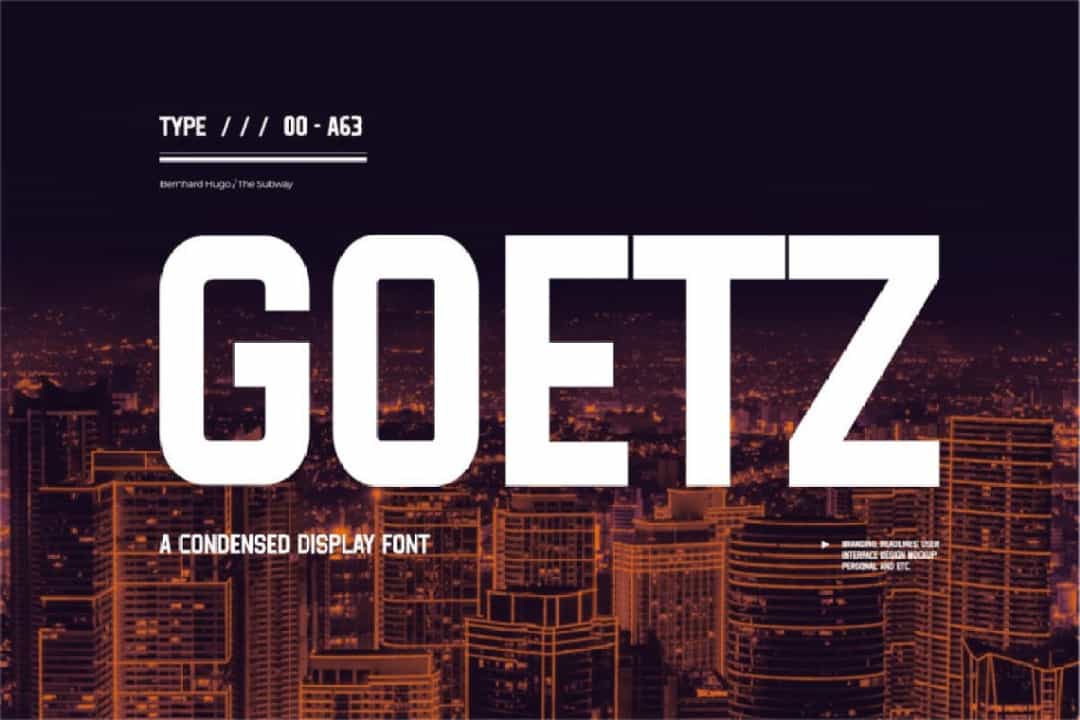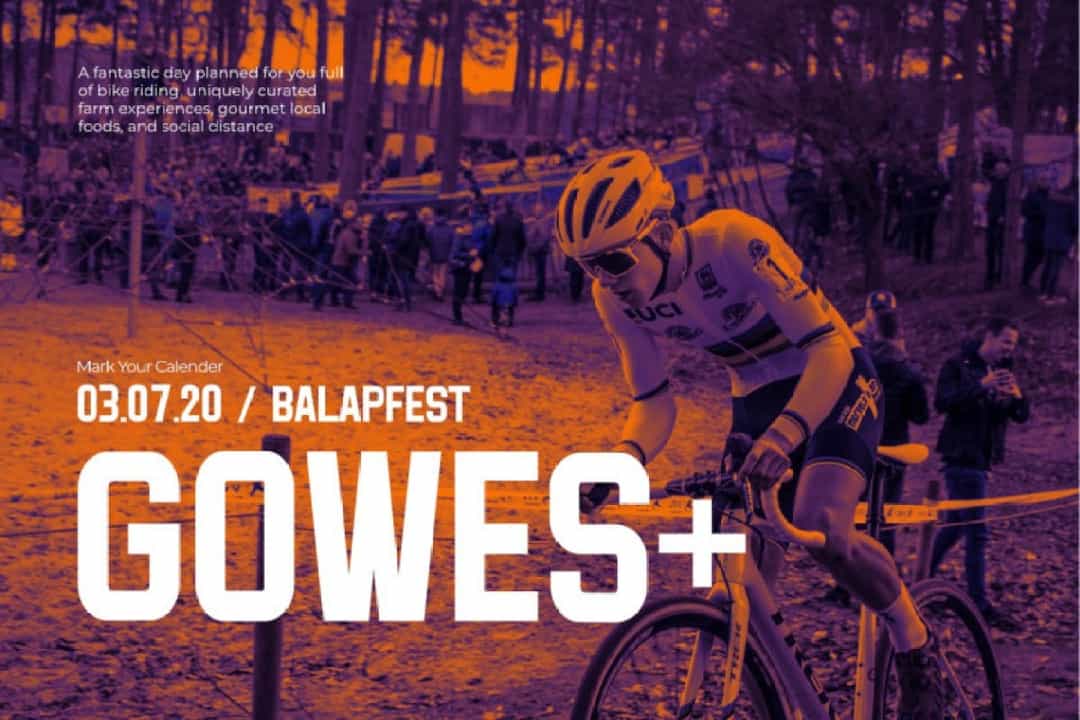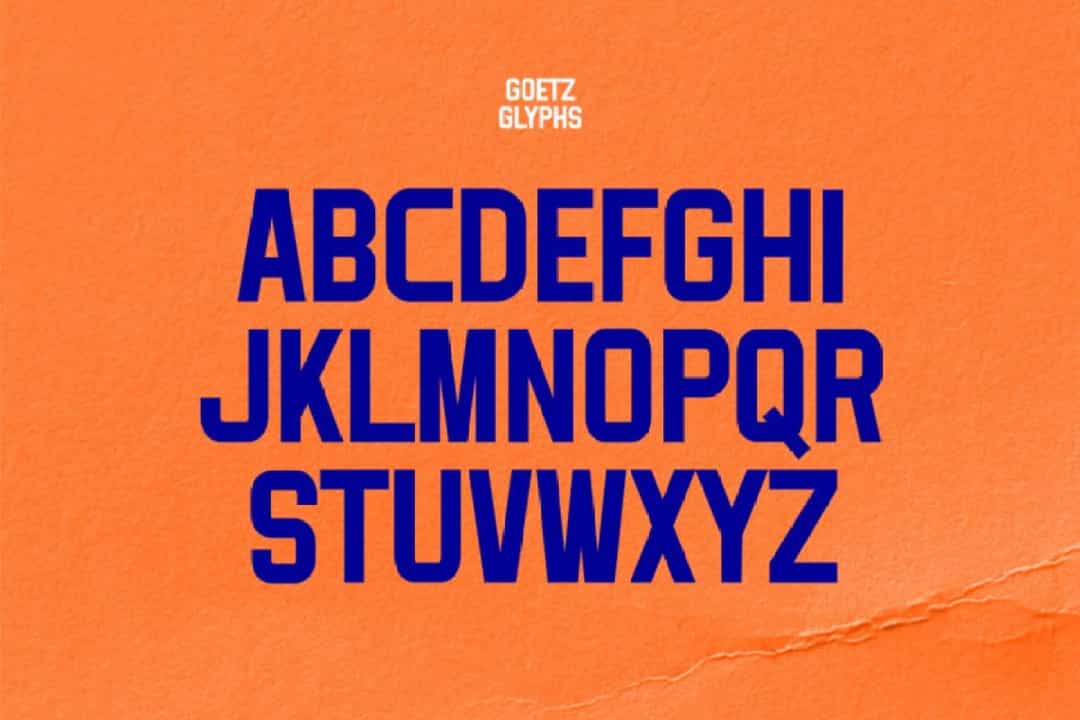
Discover Goetz Condensed Display Font, part of the Sans Serif Display collection—a versatile and unique font perfect for adding a personal touch to your projects. Download it for free and enjoy crafting designs with style, from invitations to social media posts. This font is available exclusively for personal use, giving you the freedom to create without limits. Unlock your creativity with Goetz Condensed Display Font today!
Goetz is a display font of the modern style with no provision for the font. Designed to become a hit, Goetz can be employed for user interface branding, logo titling, logos, film titles, or big title advertising and much more. This all caps condensed font is quite good to use with the industrial, technological, and sports related designs.